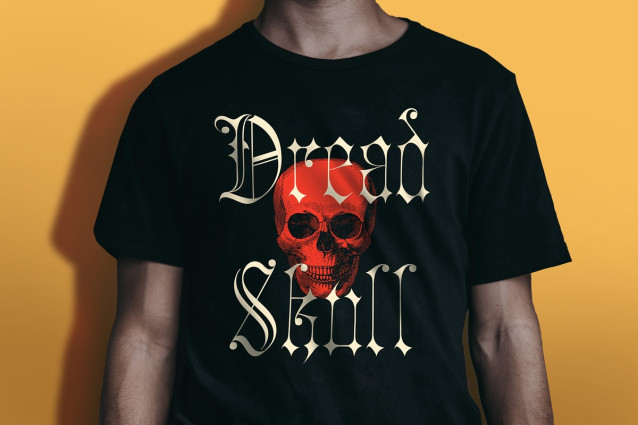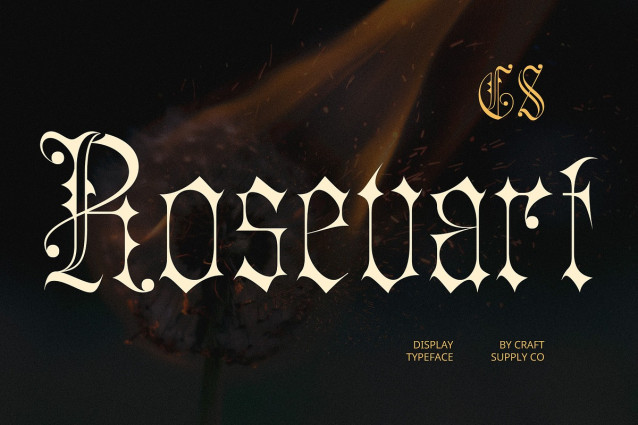
Rosevart Font
Rosevart Font is a modern blackletter display font that breathes new life into traditional Gothic typography. With a full, upright structure and clean, deliberate strokes, it reimagines blackletter with a refined, contemporary presence—making it more accessible while retaining its historic charm.
Strong Letterforms with a Sleek Modern Build Designed with bold, sharp angles and an even, open spacing, Rosevart stands out without feeling heavy or overwhelming. Its well-balanced proportions and smooth rhythm lend clarity and sophistication, perfect for commanding attention while maintaining legibility in both print and digital formats.
Where Gothic Tradition Meets Creative Edge Rosevart delivers a striking mix of old-world drama and modern finesse. Ideal for designers seeking to evoke emotion, rebellion, or elegance, it works beautifully in branding, fashion, editorial, or album art where a statement must be made with both tradition and innovation.
Versatile for Bold Branding and Visual Impact Whether you’re crafting an edgy poster, a bold logotype, or a visually rich headline, Rosevart offers the strength and uniqueness to elevate your design. Its modern reinterpretation of blackletter makes it a perfect fit for experimental projects, artistic branding, and creative layouts looking to balance heritage with forward-thinking style.